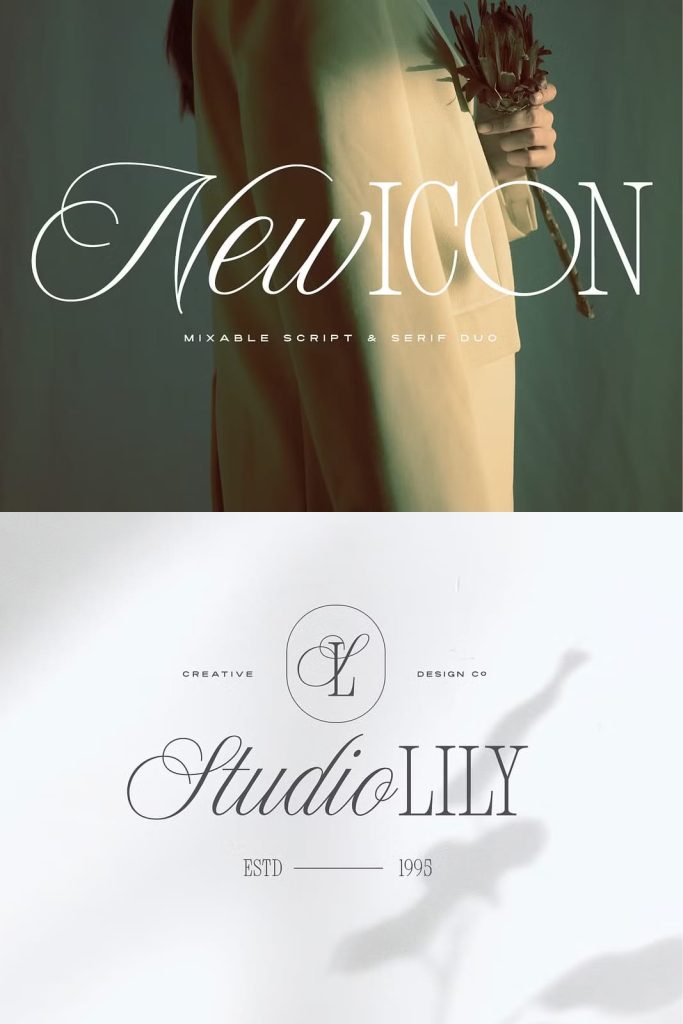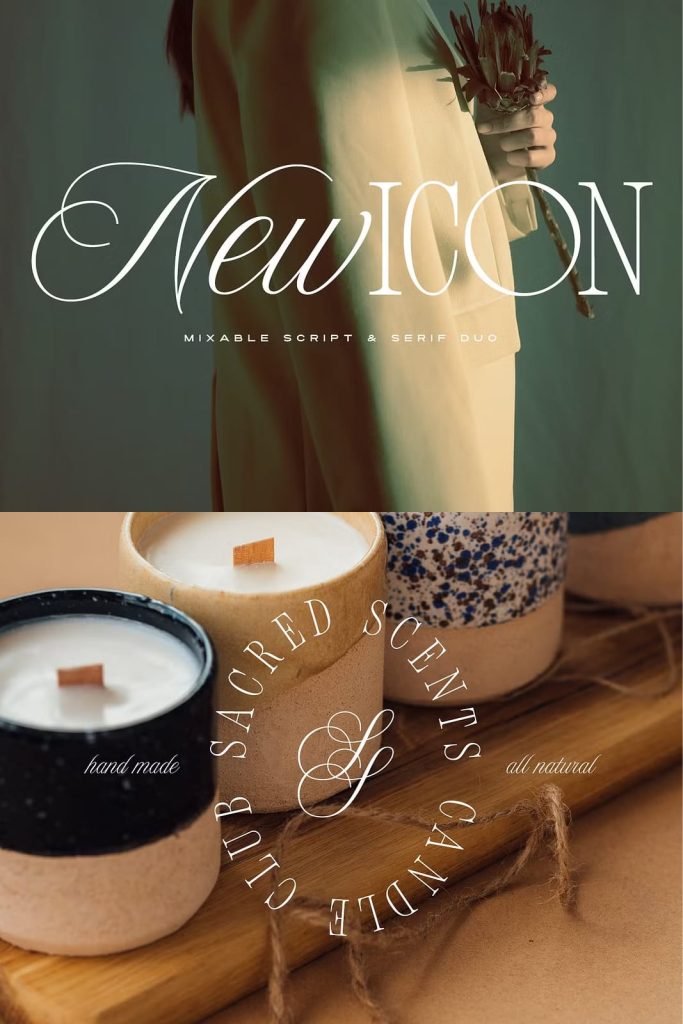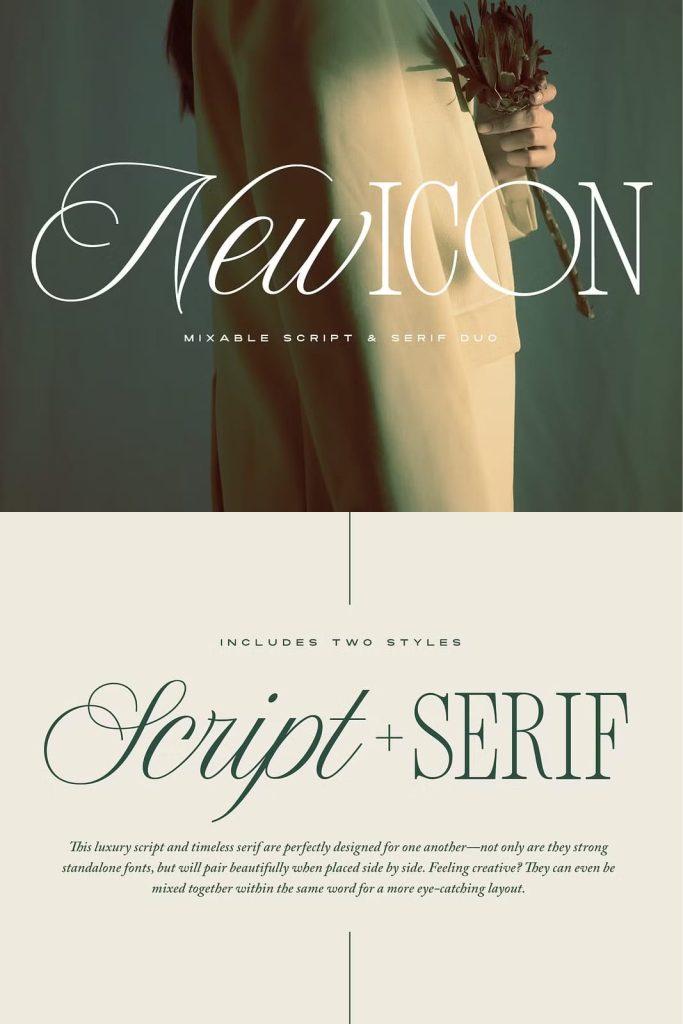
New Icon Font Duo – A Perfect Blend of Luxury Script and Timeless Serif Design
New Icon Font Duo is an elegant and versatile typeface pairing that brings together the best of both worlds: a luxurious script and a refined serif. Crafted to complement each other seamlessly, these fonts not only stand strong on their own but also shine when used together. This type duo allows designers to achieve balance and harmony, offering endless creative possibilities for logos, branding, editorial layouts, invitations, and more.
Elevate Your Design with the Power of Two
The New Icon Font Duo was thoughtfully designed to blend beauty with functionality. The elegant script adds a touch of personality, sophistication, and charm, while the serif counterpart delivers structure, readability, and timeless appeal. Together, they form a powerful combination that enhances any visual project—whether it’s a fashion brand identity, a wedding invitation suite, or a luxury packaging concept.
Each font in the duo was crafted with precision, ensuring that every curve, stroke, and serif aligns beautifully. The script font flows gracefully, with stylish swashes and a smooth rhythm that conveys emotion and artistry. The serif font, on the other hand, embodies professionalism and balance, grounding the composition with clean lines and traditional elegance. When paired side by side, they create a captivating visual contrast that feels both modern and classic.
Unmatched Versatility for Creative Expression
One of the standout features of New Icon Font Duo is its flexibility. Designers can use the fonts individually or combine them creatively within the same design—sometimes even within the same word—for a more striking effect. This interplay between script and serif brings movement and character to the typography, making each design more dynamic and memorable.
This type duo adapts beautifully to a variety of creative fields. It’s ideal for logos, social media graphics, packaging design, wedding stationery, blog headers, posters, and editorial layouts. Whether you are designing for digital or print, the New Icon Font Duo maintains clarity and impact, ensuring your message stands out with sophistication and style.
Perfect Harmony Between Luxury and Simplicity
The true beauty of New Icon Font Duo lies in its harmony. The script exudes personality and movement, giving your designs a handcrafted, artistic feel. In contrast, the serif font delivers a sense of stability and tradition, grounding the overall look. This balance creates a sense of visual rhythm that keeps viewers engaged without overwhelming them. It’s this duality—elegance and strength—that makes the font duo an essential tool for modern designers.
Whether you’re crafting an exclusive brand identity or a minimalist editorial spread, this typeface offers the flexibility to experiment while maintaining aesthetic coherence. Each font enhances the other, resulting in a pairing that feels refined yet creative, professional yet expressive.
Why Designers Love the New Icon Font Duo
- Perfect pairing of elegant script and timeless serif fonts
- Designed for professional and creative use across multiple media
- Offers flexibility—use together or individually
- Ideal for luxury branding, invitations, logos, and editorial designs
- Delivers high readability and stunning visual contrast
Designers appreciate the New Icon Font Duo for its adaptability and balance. The script’s expressive curves bring creativity to any design, while the serif’s structured letterforms ensure clarity and professionalism. When used together, they create an aesthetic that feels cohesive, premium, and thoughtfully designed. This combination allows brands to express both their creative energy and refined identity with confidence.
Applications That Inspire
The New Icon Font Duo shines across a wide range of applications. For branding, it can define a company’s personality—mixing elegance with authority. In packaging design, it adds sophistication and draws attention to product names or taglines. For wedding invitations, the script creates romantic charm while the serif provides balance and legibility. Even in editorial layouts, the type duo enhances visual storytelling by adding typographic contrast and hierarchy.
This versatility means you can use it consistently across your brand materials while maintaining design cohesion. The duo’s complementary qualities make it an invaluable asset for any designer who values both creativity and precision.
Tips for Using New Icon Font Duo Effectively
To make the most of the New Icon Font Duo, consider using the serif for main titles, headers, or body text, and the script for accent words or decorative highlights. This creates balance and ensures readability while adding a touch of personality. When used within the same word, combine lowercase script letters with uppercase serif characters for a playful, eye-catching effect. Use generous spacing to let each letterform breathe and maintain a clean, polished aesthetic.
Conclusion: A Timeless Duo for Modern Designers
The New Icon Font Duo represents the perfect union of luxury and versatility. Its seamless combination of script and serif styles allows designers to express elegance, creativity, and balance in every project. From modern branding to classic stationery, this font pair captures attention and elevates design aesthetics with sophistication. Embrace the New Icon Font Duo and discover how two perfectly matched fonts can transform your creative work into something truly iconic.